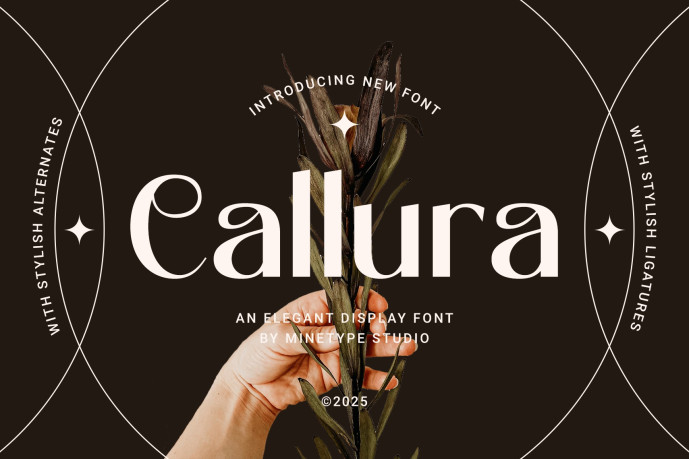
Callura Font – Elegant Display Font is a stylish and sophisticated display typeface crafted to give your designs a luxurious and artistic touch. With its elegant curves and modern character, this font is perfect for branding, logos, social media posts, advertisements, packaging, invitations, fashion editorials, and creative projects that require a classy and eye-catching appearance.
Designed with high readability and versatility, Callura works beautifully for both print and digital designs, making it an excellent choice for professional and creative use.